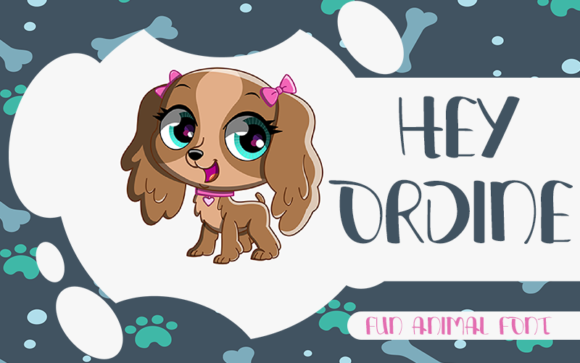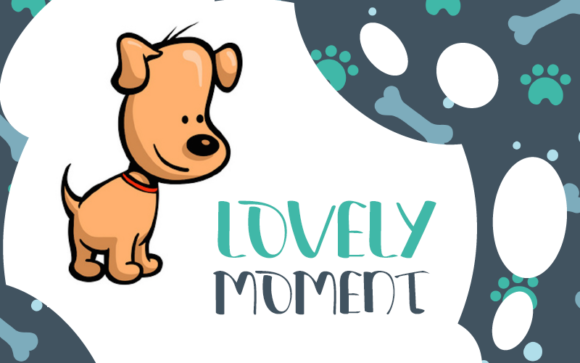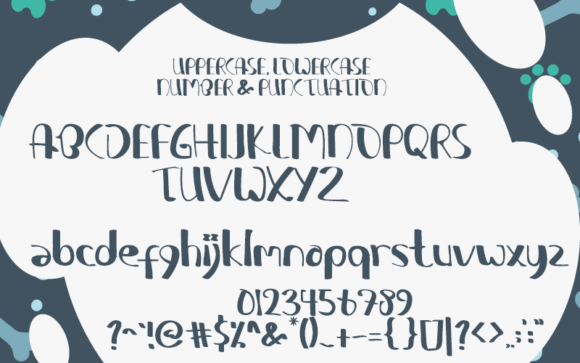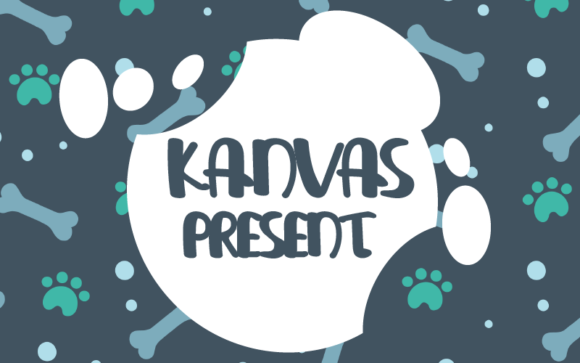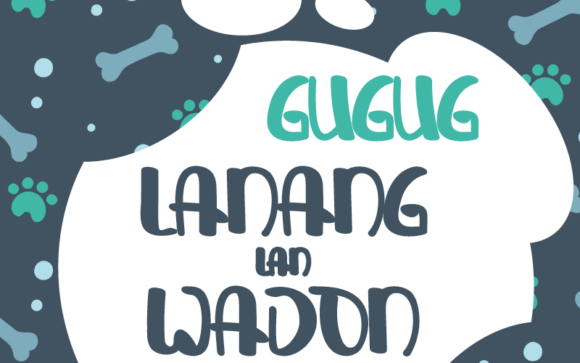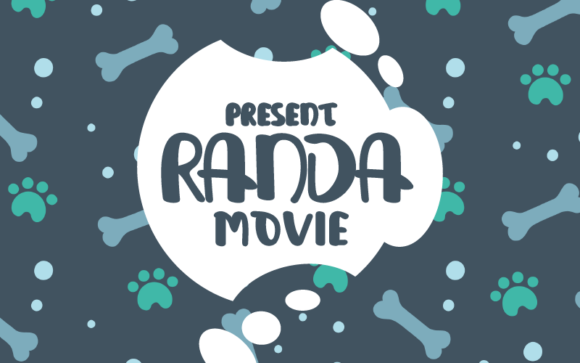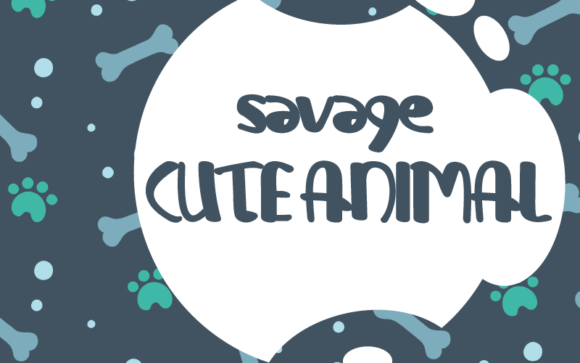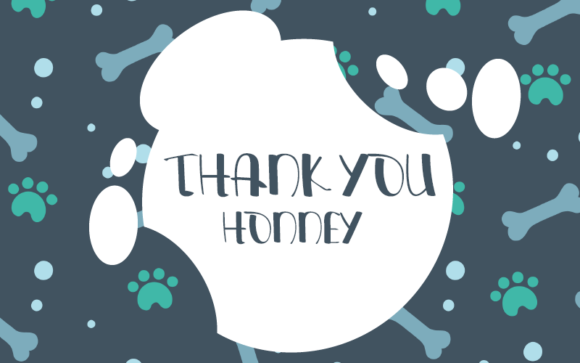
Hey Ordine Font
Hey Ordine is a cute handwritten font. It features an incredibly classic style, while still keeping a friendly feel. Hey Ordine is the perfect font for making original and outstanding designs.